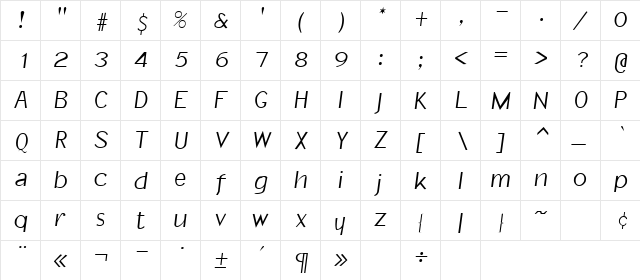
Atlanta Regular
Design Context for Atlanta Typeface
Atlanta offers clean, dependable letterforms without strong stylistic allegiance, making it a practical choice for designers who need flexibility.
Pro Tip: Use Atlanta in both headline and body roles to test its range before committing to a single application.